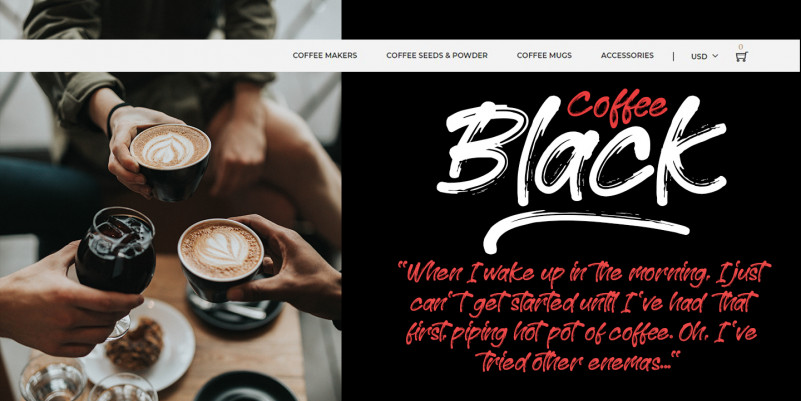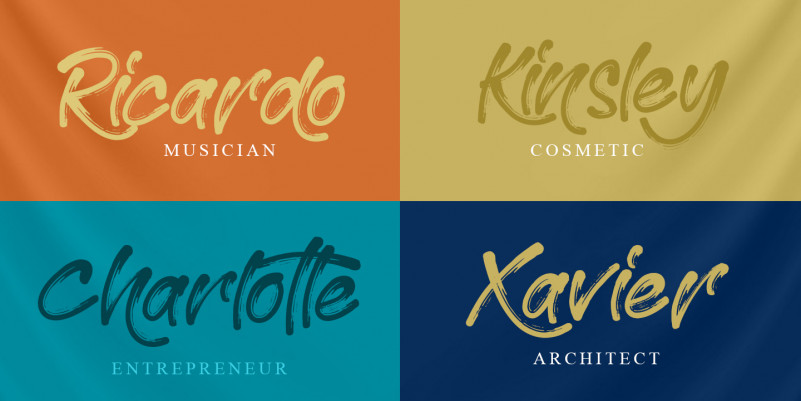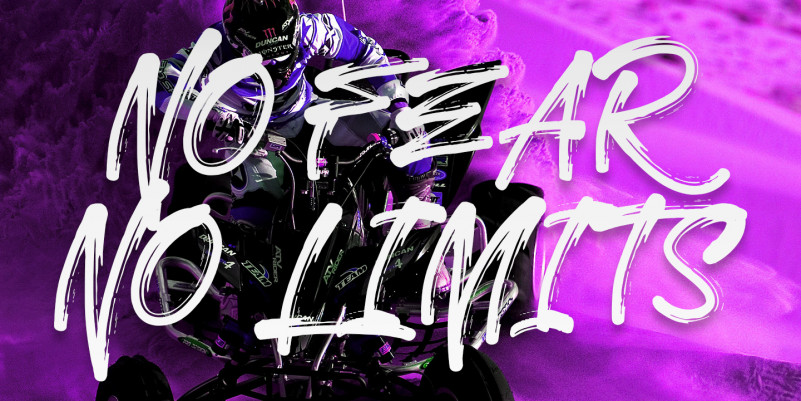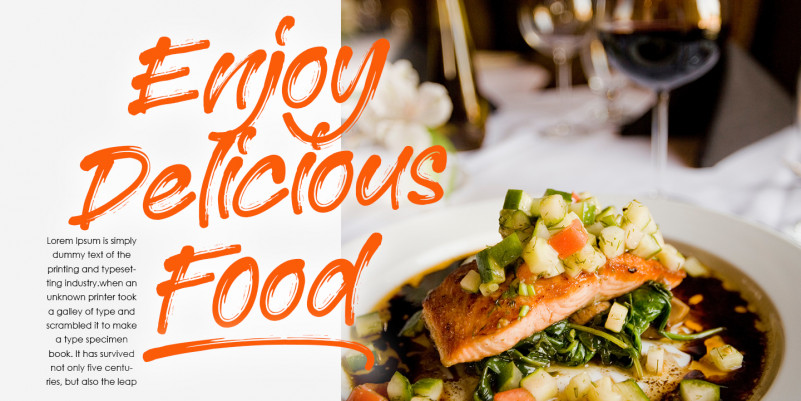
Morrissey Brush Font
Hi there, Morrissey Brush Font is a handwritten Brush. This font perfect for poster design, book covers, merchandise, fashion campaigns, newsletters, branding, advertising, magazines, greeting cards, album covers, and quote designs and more.